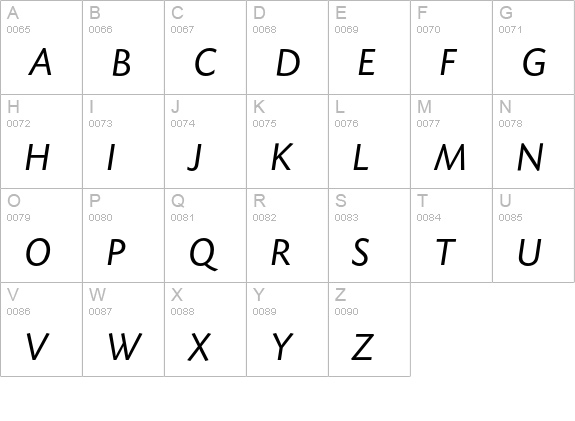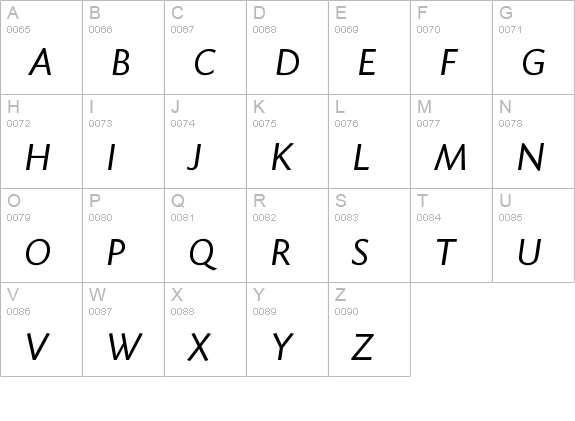
Today Sans Serif Italic Font Details
Today Sans Serif Italic is a distinctive, italic variant in the Today typeface family \xE2\x80\x94 well suited to design and typography projects.
Introducing Today Sans Serif Italic, a modern and versatile font that effortlessly combines sleek sophistication with a touch of artistic flair. This font is the perfect choice for those seeking a contemporary yet stylish look in their designs. With its clean and streamlined appearance, Today Sans Serif Italic exudes a sense of elegance and professionalism. The italicized typeface adds a subtle twist, injecting a sense of dynamism and movement into your text. Whether it's for branding, advertising, or editorial purposes, this font will make a bold statement that captivates the attention of your audience. What sets Today Sans Serif Italic apart is not just its stunning aesthetics, but also its accessibility. This font is available free of charge, making it a valuable asset for designers and creatives on a budget. You can easily download it at FontsMarket.com, the leading online platform for high-quality fonts. Embrace the versatility and creativity of Today Sans Serif Italic, and elevate your designs to new heights. Whether you're creating eye-catching headlines, elegant logos, or engaging social media posts, this font will bring your vision to life with its unique blend of modernity and sophistication. Download Today Sans Serif Italic now and unlock a world of design possibilities, all at your fingertips.